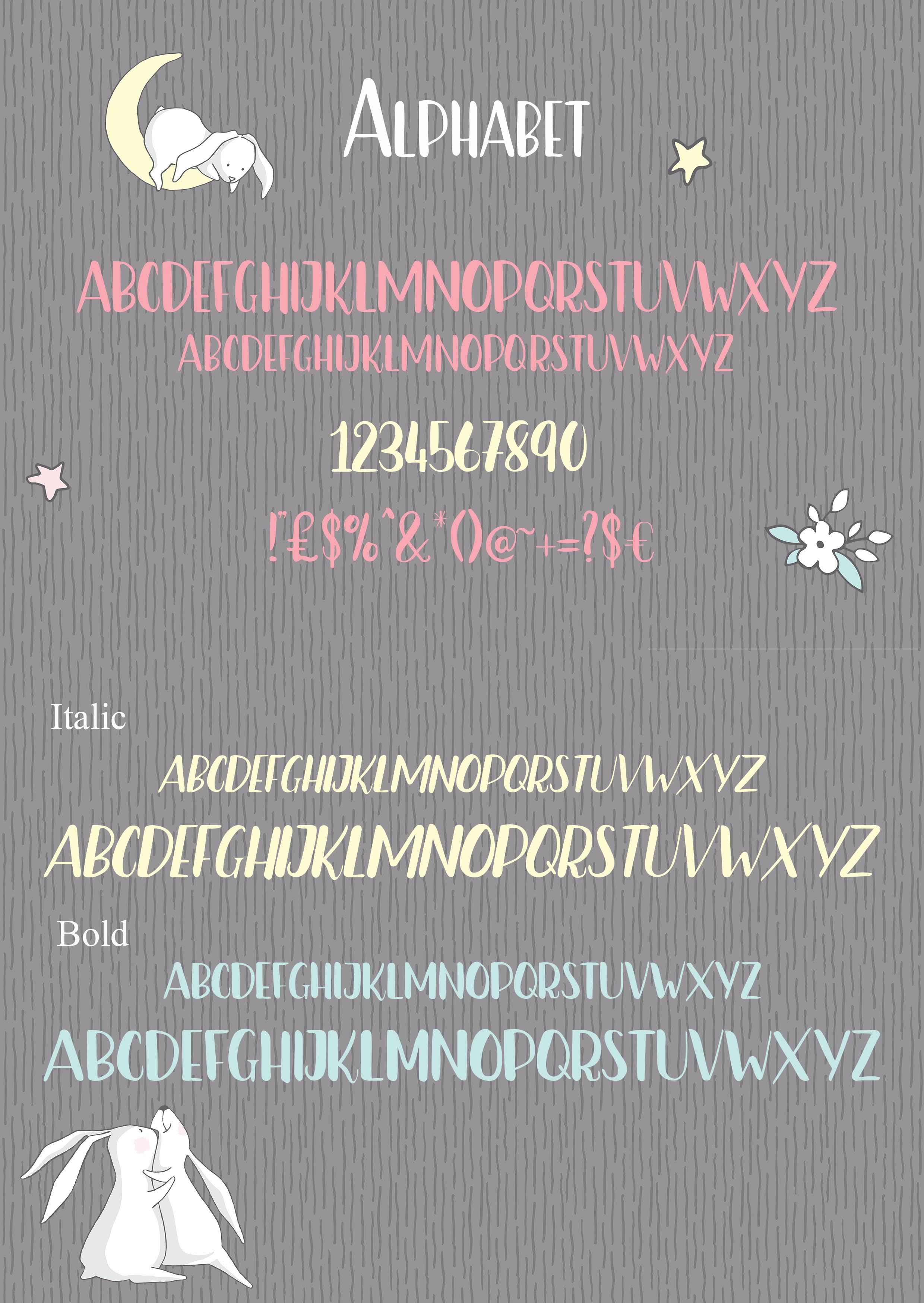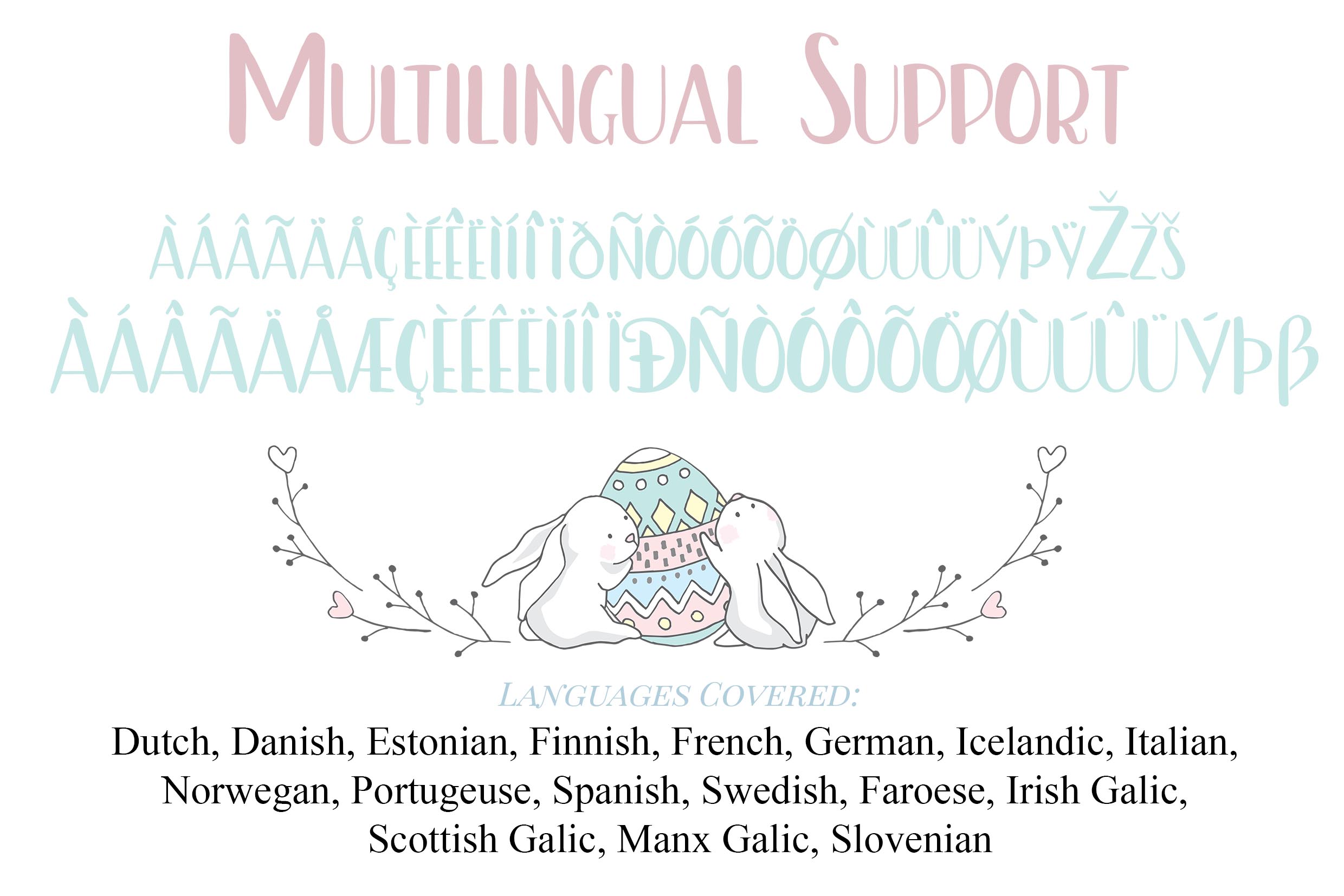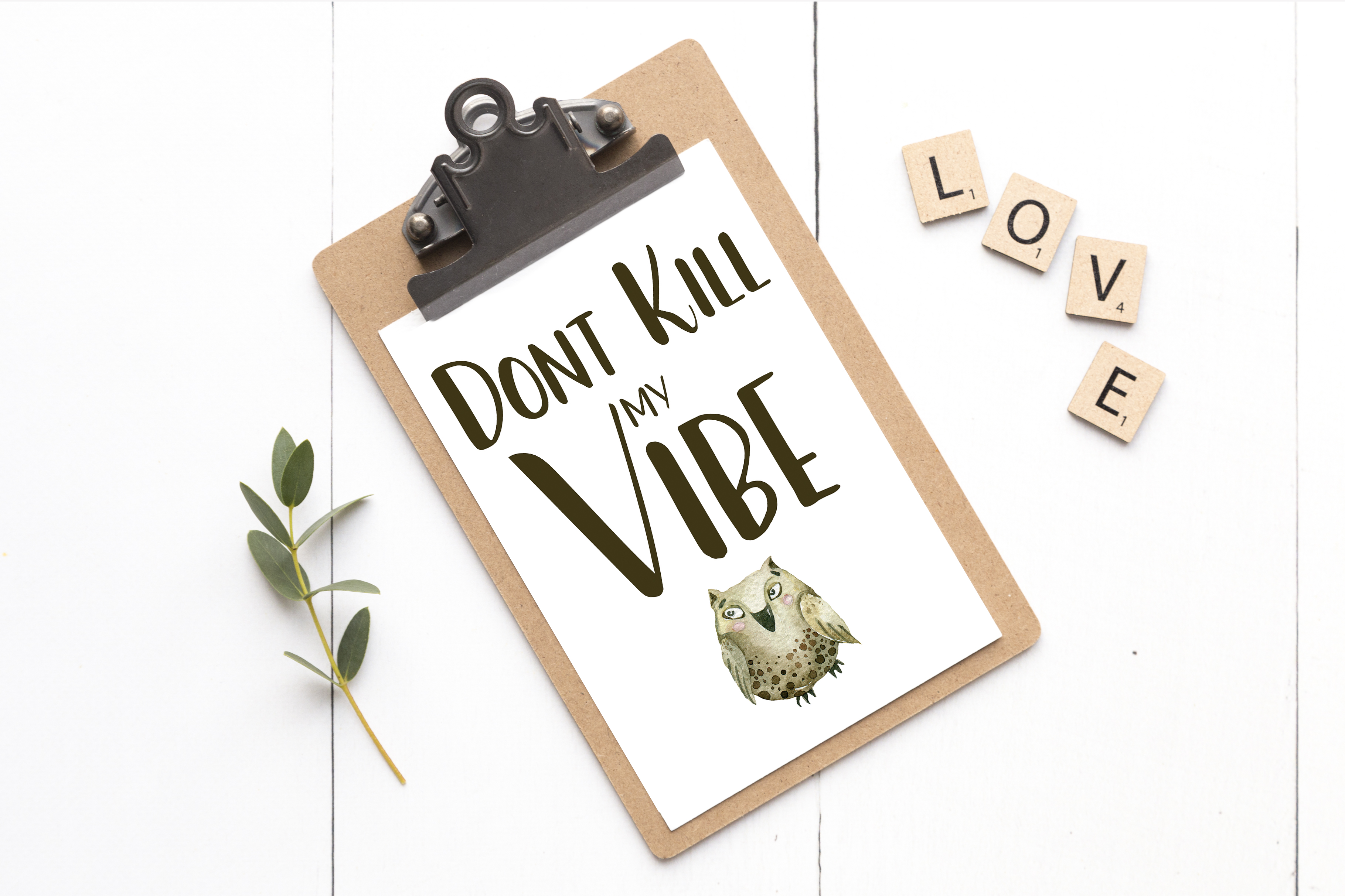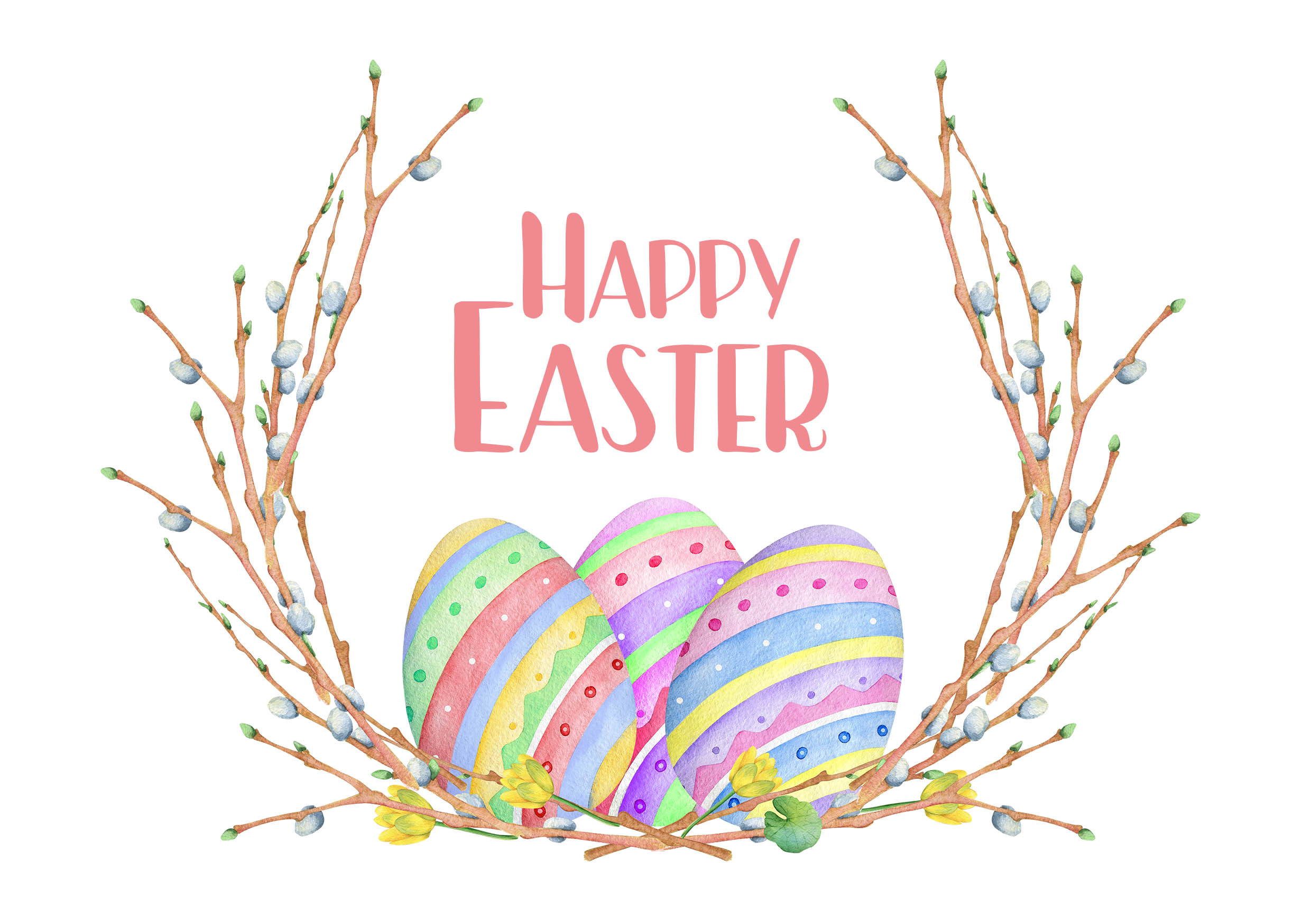
Unlock the Whimsy of Your Designs with the Bradley Font
Do you remember the moment when a font choice completely transformed your design and took it to the next level? For me, it was when I stumbled upon the Bradley Font while working on a playful project. Its unique blend of springy and friendly vibes instantly captured my attention and made me wonder: what makes this font so special?
The Bradley Font is a sans serif font designed to bring a touch of whimsy to your designs. Its bold lines and playful style make it perfect for creating eye-catching visuals that are sure to delight your audience. As a designer, you know how valuable it is to have a versatile font that can elevate your work and make it stand out from the crowd. The Bradley Font is that font – and in this article, we’ll explore its features and benefits in more detail.
Key Features of Bradley Font
- Unique Characteristics: Bradley Font is known for its elegant and classic design, with a distinctive blend of modern and traditional elements, making it suitable for a wide range of applications, including invitations, posters, and business cards.
Review of Bradley Font
I recently had the chance to work with the Bradley Font, and I must say it’s a unique and interesting choice for designers. ✨ One of the things that stood out to me was the font’s retro vibe, which is perfect for projects that require a nostalgic feel. The font’s classic lines and curves are reminiscent of a bygone era, and it’s sure to add a touch of sophistication to any design.
- Perfect for vintage-inspired designs
- Unique and eye-catching
- Works well for headings and titles
However, there are some limitations to consider ⚠️. The font may not be the best choice for projects that require a more modern or minimalist look. Additionally, the font’s weight may not be suitable for all types of text, and it may be difficult to read in smaller sizes. Another thing to keep in mind is that the font may not be as versatile as some other options, and it may not be suitable for use in digital interfaces.
Overall, I think the Bradley Font is a great choice for designers who are looking for a unique and eye-catching font to add some personality to their designs. While it may have some limitations, it’s definitely worth considering for the right project.
Getting the Most Out of Bradley Font
To get the most out of Bradley Font, try the following tips:
- Use Bradley Font in combination with other elegant fonts for a sophisticated look.
- Adjust the font size and color to create visual hierarchy and emphasis.
- Use Bradley Font in headings and titles for a touch of elegance.
Bradley Font is commonly used in:
Alternatives to Bradley Font
Playfair Display is an elegant, high-end serif font suitable for luxury brands, high-end fashion, and premium products. It features intricate details and connections between letters, making it perfect for headings and titles.
Comparison to Bradley Font: While Bradley Font is more straightforward, Playfair Display is more ornate and suitable for high-end branding.
Didot is a classic, elegant serif font ideal for luxury, high-end, and sophisticated branding. It features a refined and sophisticated look, making it suitable for fashion, jewelry, and premium products.